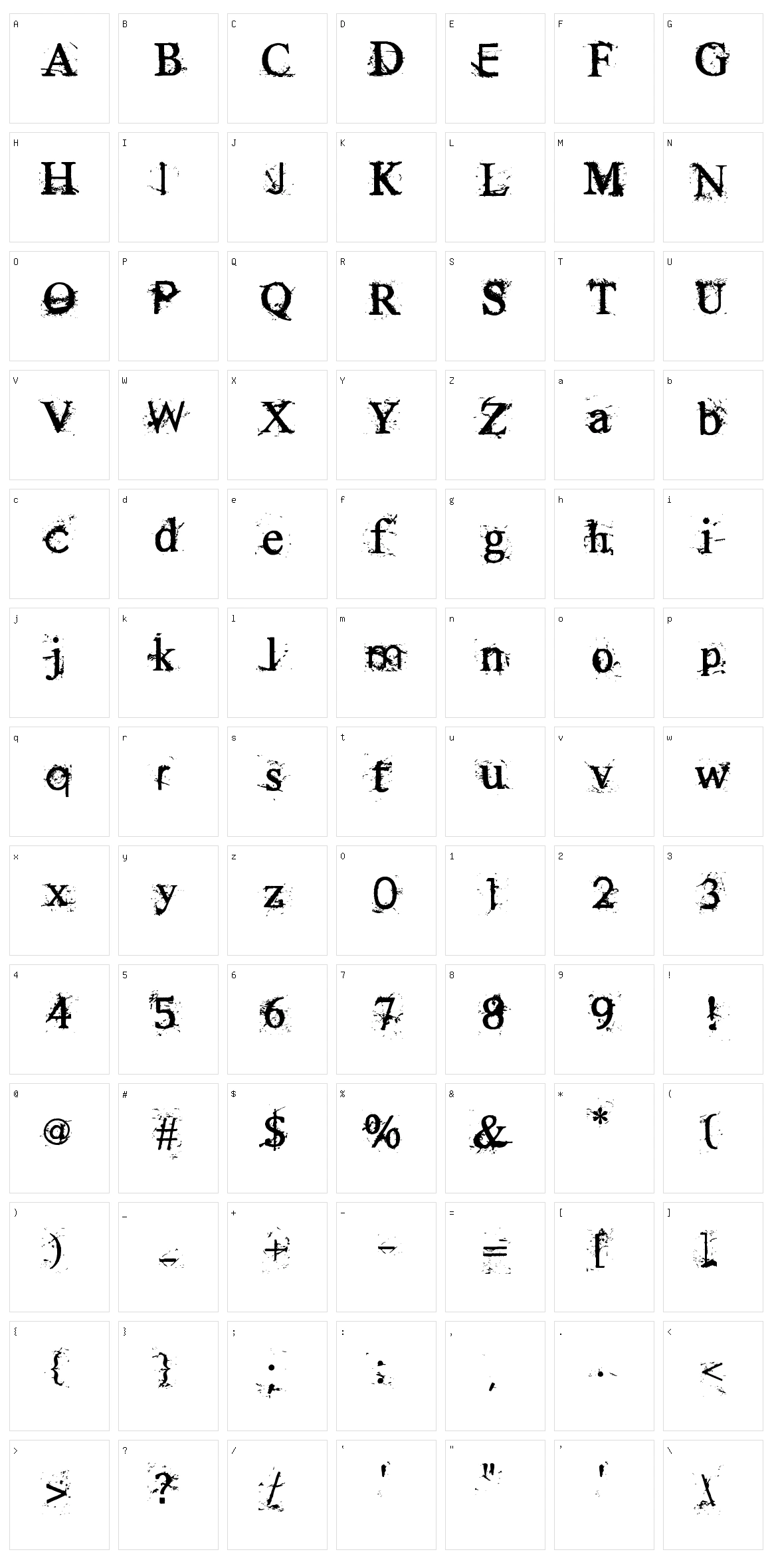
The free font Rugged Type is carefully designed by M-Dfonts, showcasing a thoughtful balance of creativity and usability and falls under the Destroy font style. When you download the ZIP file, it contains only 181.52 KB of font files, making it lightweight and quick to download. Please review the license details below to understand permitted usage and distribution rights. If license information is not available, we recommend using this font for personal projects only or contacting the author directly for commercial usage permissions.